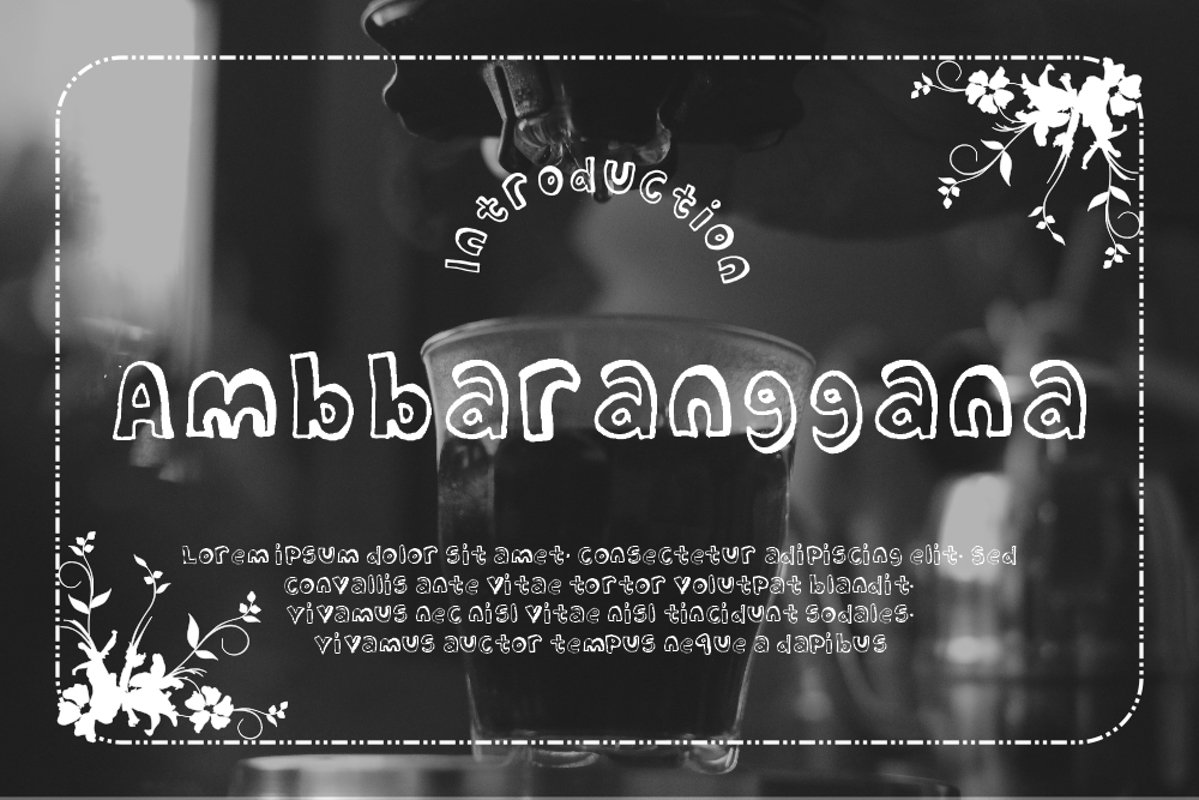
Ambbaranggana
Ambbaranggana Typeface is a Display type. It suitable for any vintage type needs and more Happy creating.Very suitable for you who do exploration